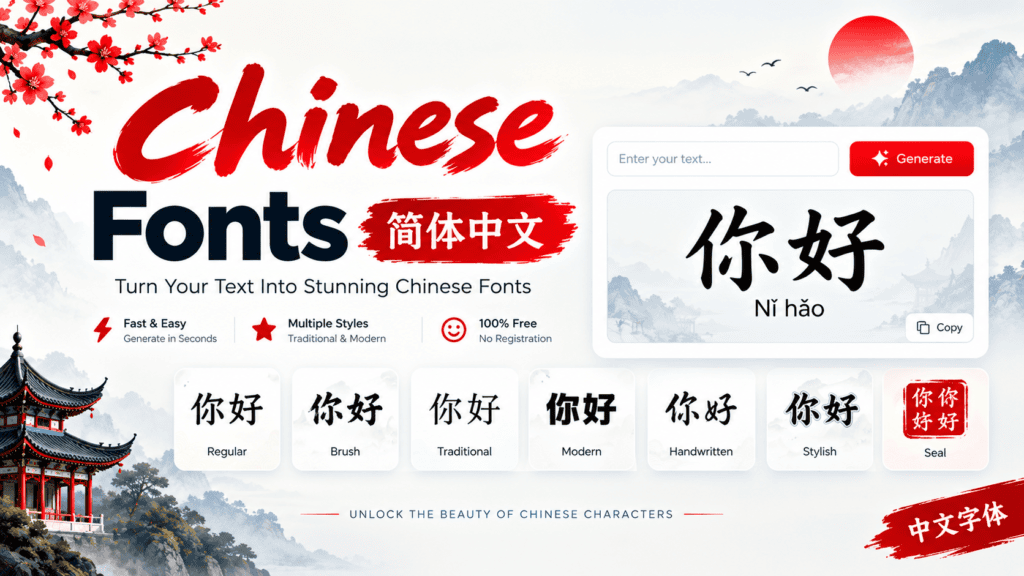
Type Chinese characters or English text to convert into aesthetic Oriental styles & fonts.
A Chinese-like script can turn ordinary text into stylized lettering, using symbols, Hanzi, strokes, and structures that evoke an Eastern aesthetic. I explore Traditional and Simplified looks to capture beauty without claiming authenticity and interpretations.
For practical projects, generators provide unique options to transform regular letters into visually striking designs, while social media, art, and typography benefit from quick results and a distinctive style for modern creators on popular platforms.
About Chinese Text Generator / What Is A Chinese Text
In my experience, Chinese text generators deliver results when users test concise input, compare character styles, and consider how simplified or traditional characters help readers understand meaning and visual appeal across digital platforms more consistently.
A practical generator can transform plain wording into distinctive Chinese typography without requiring calligraphy expertise, making it useful for Social Media, Graphic Design, Branding, captions, posters, and Personal Projects with flexible options for varied contexts.
How It Works / Readability Of Results
When the interface receives input, the field should preserve character order before styling. I usually test several styles first, then press Generate and inspect spacing, strokes, and typography rather than judging decoration alone on screens.
For readability, use the copy controls and buttons only after checking preview quality. I look for complex shapes, clear meanings, and stable rendering, especially when fonts, colors, or effects move into Social Media and logos.
About Chinese
Chinese writing has a rich history, yet its visual logic differs from Western alphabets because Chinese characters function as logograms. I find this unique structure especially useful when studying modern digital typography choices and layouts.
Traditional Chinese characters, 繁體字, contain complex structures, while simplified characters, 简体字, use fewer forms that can be easier to write. Their aesthetic beauty still depends on spacing, proportion, and deliberate styling across screens and layouts.
Chinese Fonts (Simplified Characters)
Simplified Chinese fonts took shape after a reformed system was developed in the mid-20th century, reducing strokes and eliminating some variants. For typography, these changes made character forms quicker to recognize, especially within compact interfaces.
In practical design work, official common forms are easier to verify because they are taught widely through education. I also find calligraphy treatments useful when preserving clarity, provided decorative adjustments never obscure the underlying characters.
Chinese Text Generator Example
A Chinese text generator example can begin with Original Text, then compare Modern Style, Traditional Style, and Artistic Style while checking readability. From experience, this reveals how spacing, strokes, and rhythm affect each rendered phrase.
A Chinese example can test calligraphy by selecting an elegant design for social media, then reviewing authentic character presentation. I watch spacing because decorative choices can shift emphasis, balance, and clarity while keeping showcased wording.
What sets it apart is flexibility: I can explore a wide selection of styles, compare authentic-looking results, and choose an eye-catching treatment without sacrificing readability. That workflow suits designers seeking a distinctive cultural touch today.
Popular Chinese Calligraphy Use Cases
Chinese calligraphy works beyond traditional writing, especially when teams create projects needing unique language. I use generated characters for logos, artwork, and tattoos, while reviewing cultural context before applying them commercially, strengthening brand identities carefully.
Creators add these styles for posts, blog articles, and Content Creation, where visually appealing lettering can stand out. I recommend testing spacing and meaning first, especially for custom Eastern-inspired typography widely used across public-facing media.
How To Use The Chinese Font Generator
Enter your Chinese text, then compare different presentation choices while checking the intended meaning. I usually test short phrases first, observe spacing, and refine the result until the visual direction matches my preference more closely.
Once a suitable version appears, review multiple options side by side before copying. The Copy All feature saves time when comparing variations, while finished designs can be checked quickly against your final comparison before publishing.